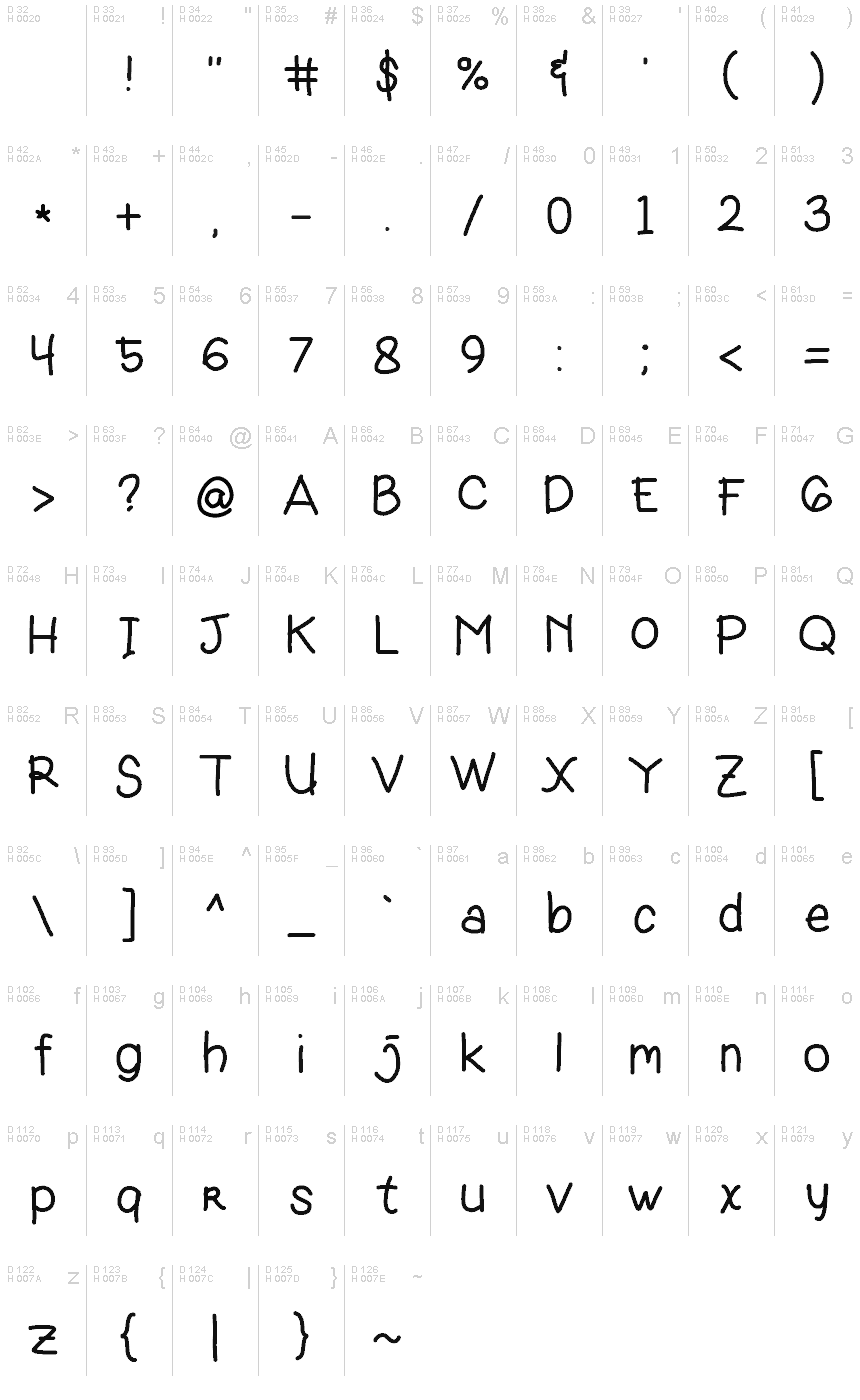
nenna
Nenna is a captivating handwritten font designed by Renatal Charisti. Its organic, flowing strokes evoke a sense of warmth and personality, making it an alluring choice for a wide range of design applications. The font's bold, yet elegant lines lend a touch of sophistication, while its playful, almost cursive nature adds a touch of whimsy.
Nenna's versatility shines in its ability to seamlessly transition between formal and casual settings, making it a versatile tool for branding, signage, editorial layouts, and even personal correspondence.